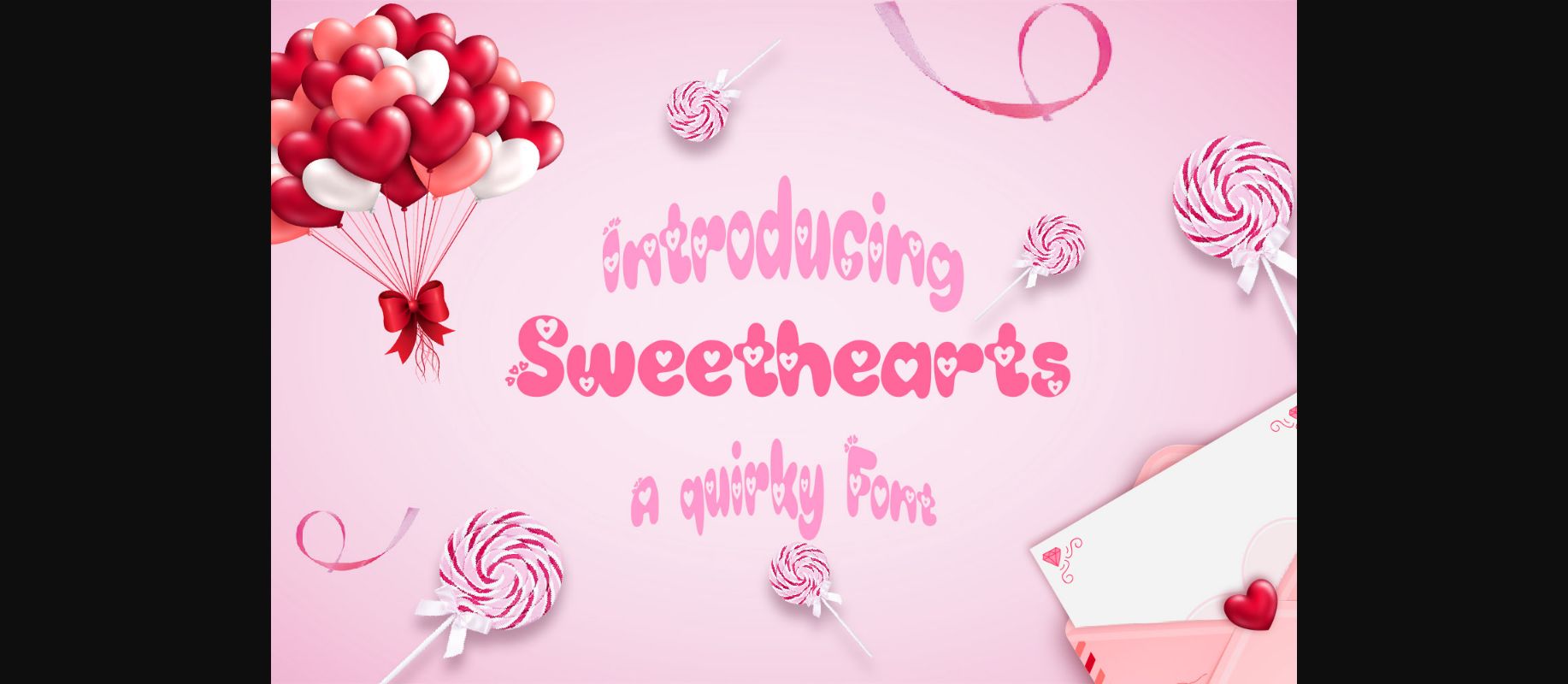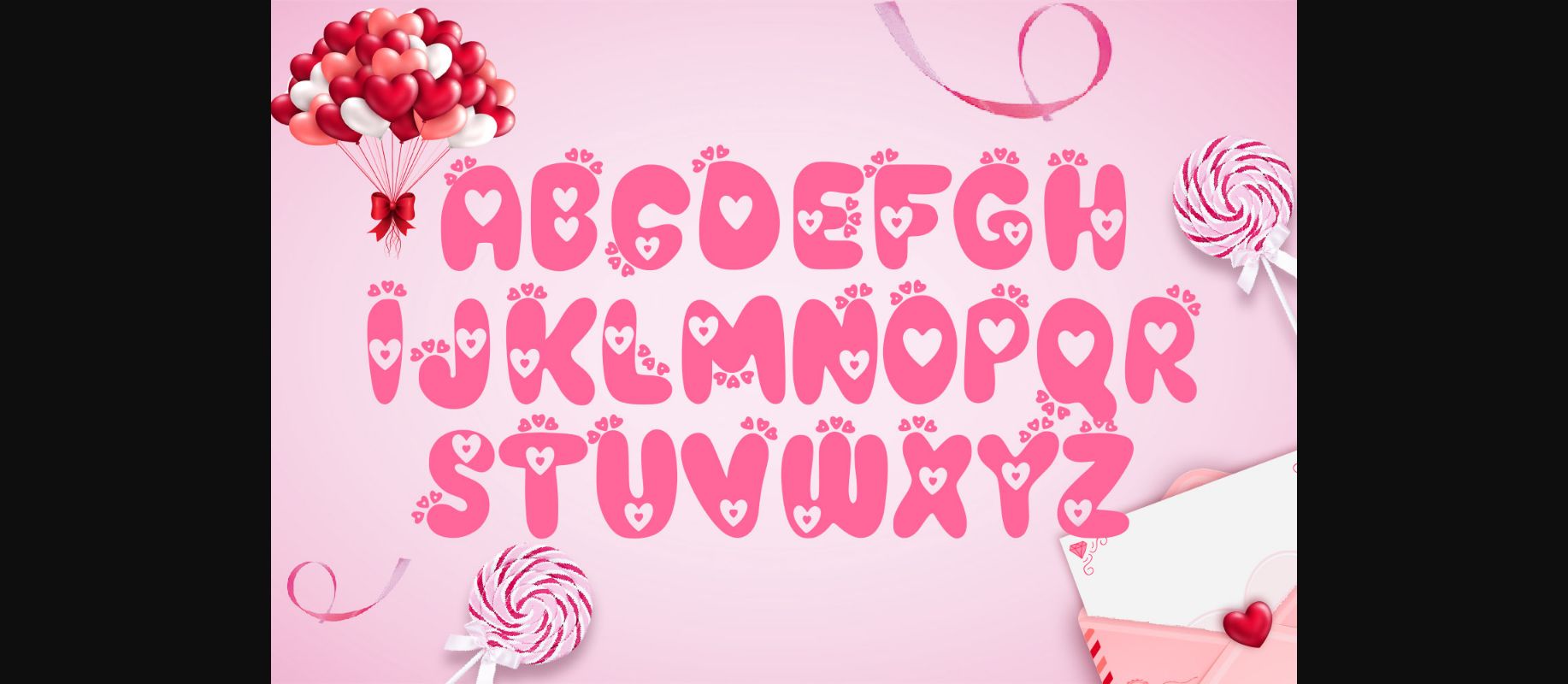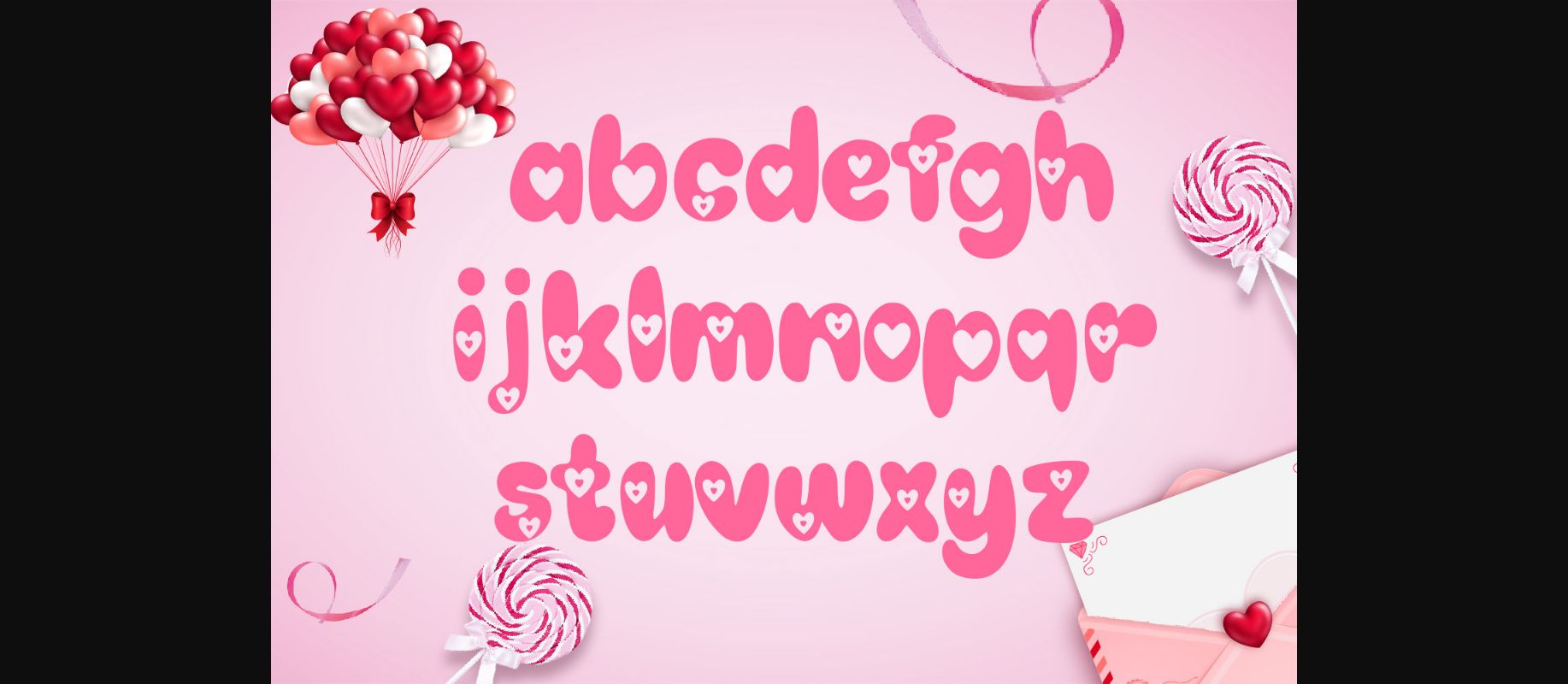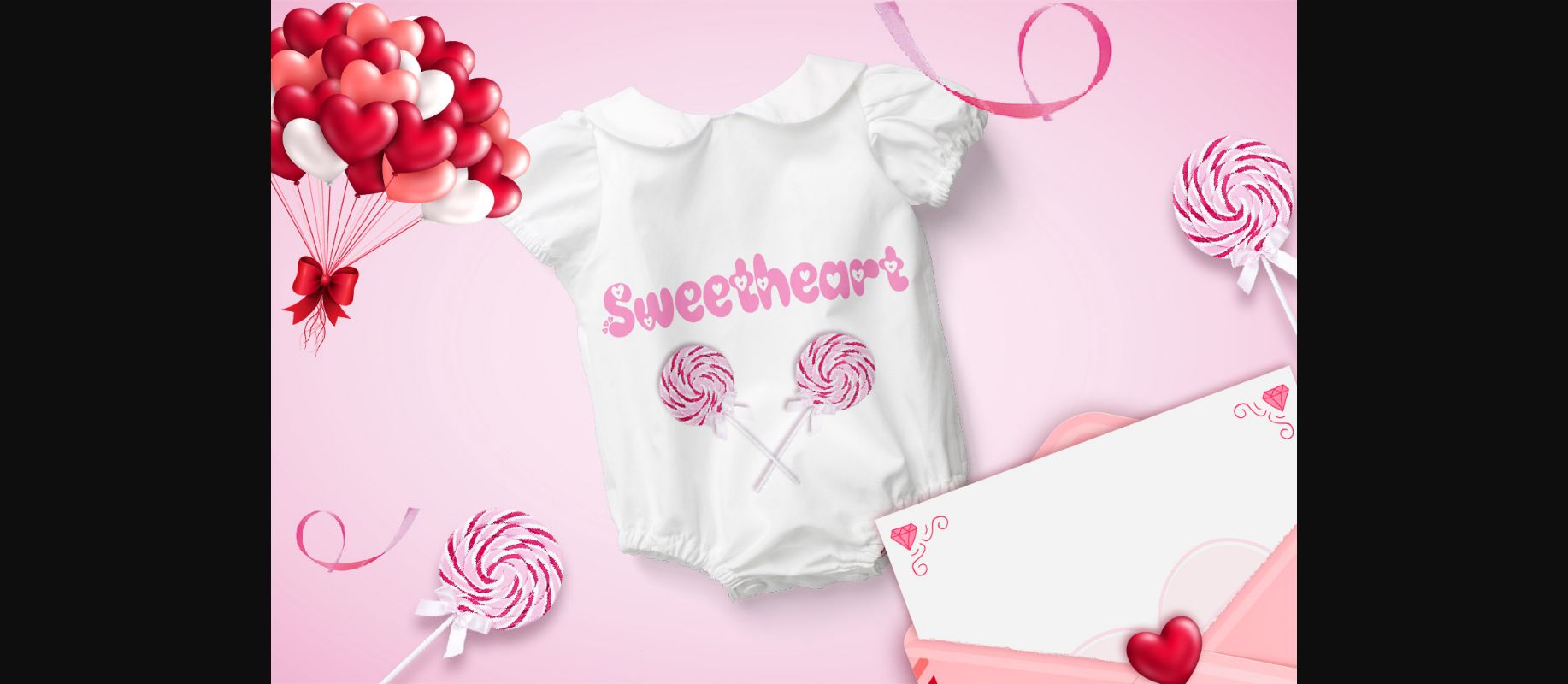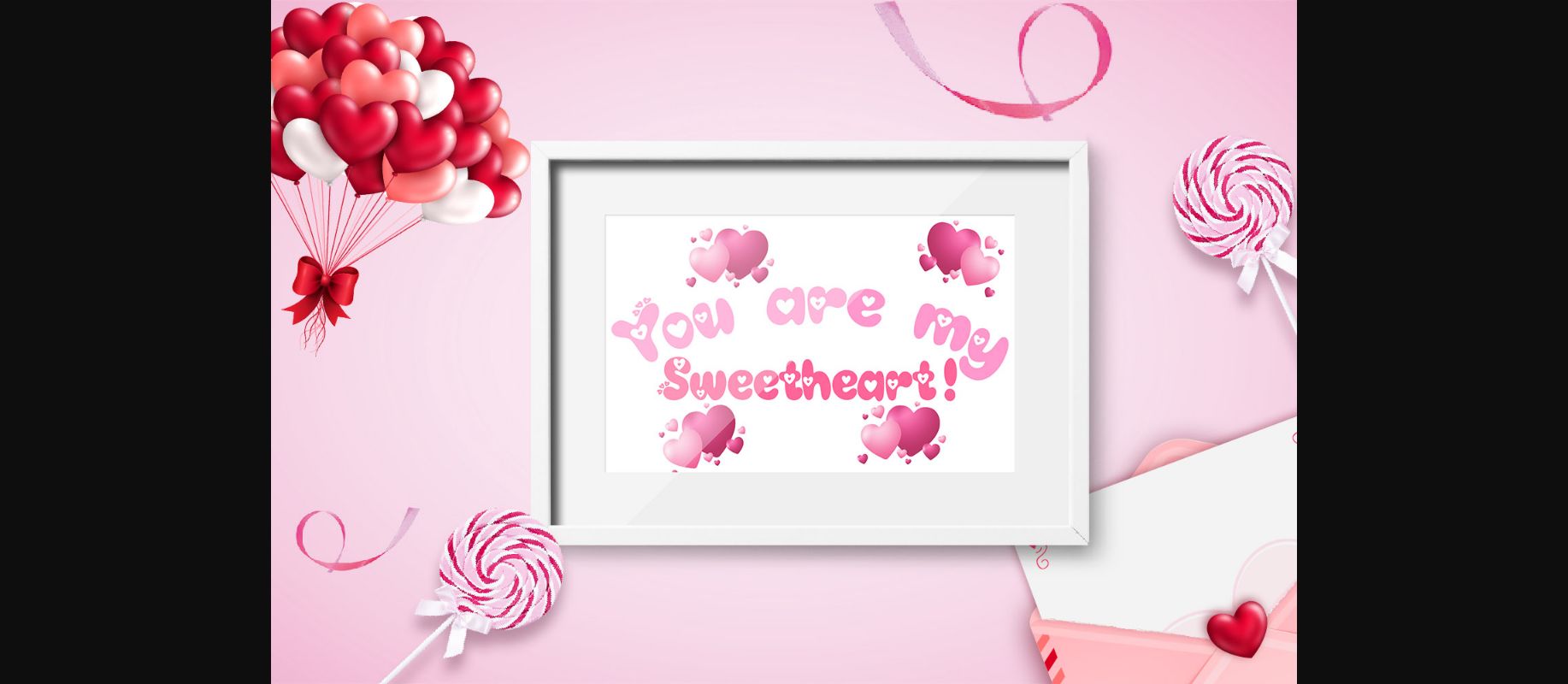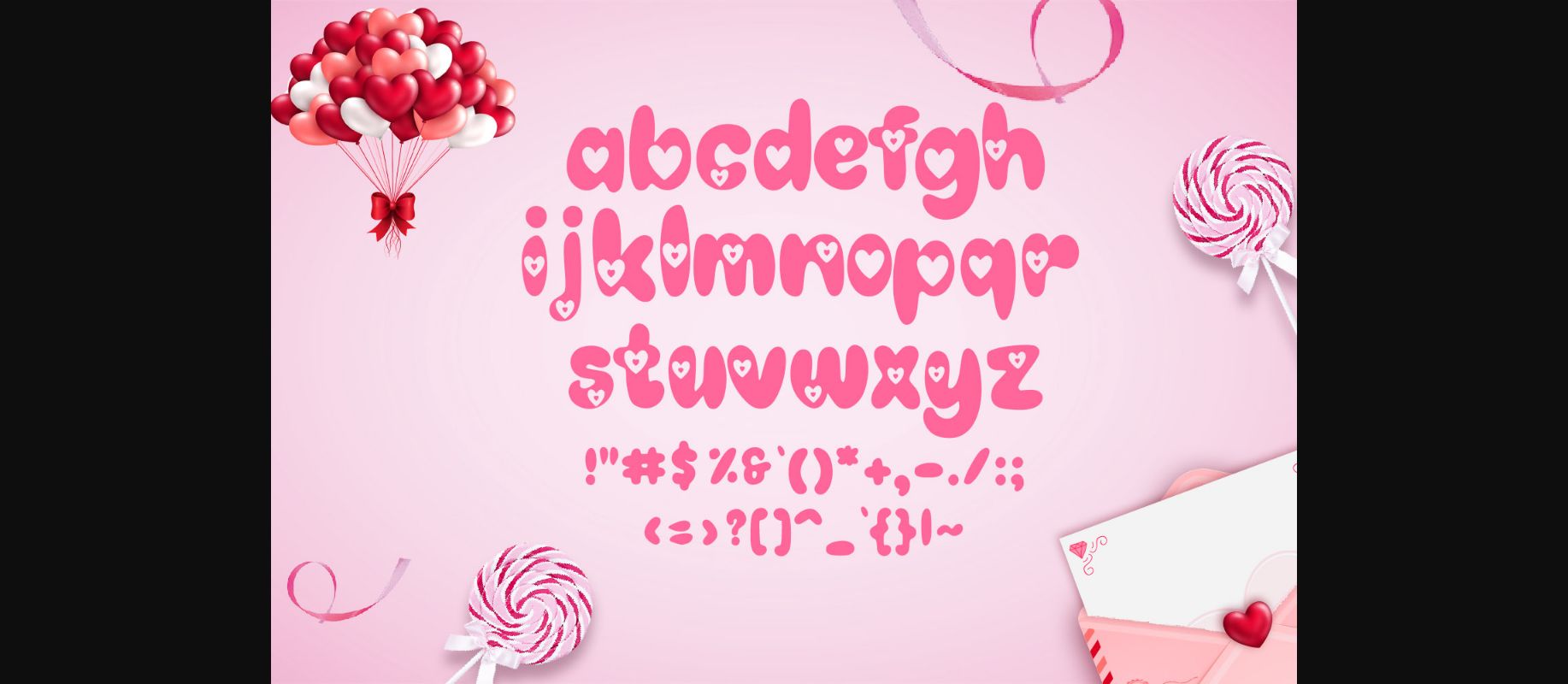
About Sweethearts Font
Sweethearts is a quirky, playful and romantic decorative font, featuring little hearts as ornaments. Add this chunky lettered font to your designs and notice how it makes them come alive!